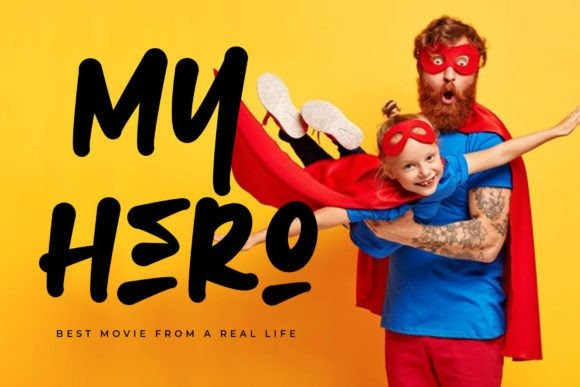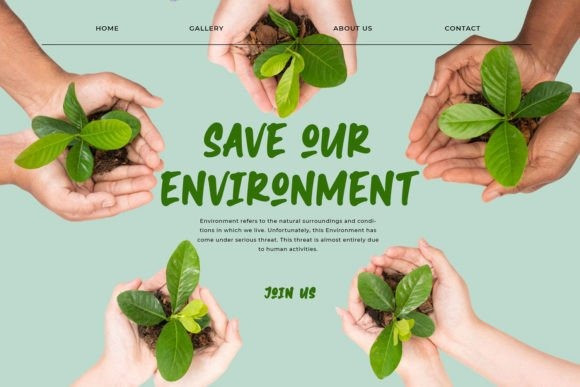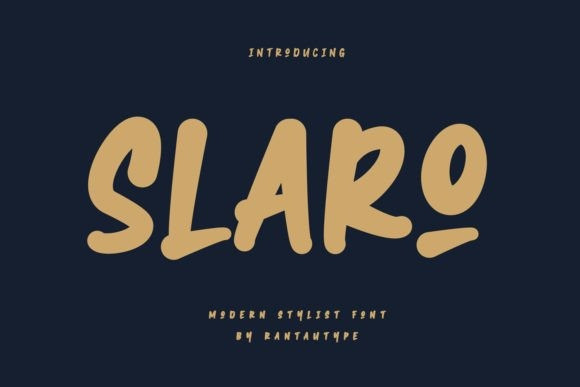
Slaro Font
Slaro Font is a modern and bold handwritten font that exudes confidence and style. Its strong and dynamic letterforms make a statement, while the subtle irregularities and brush-like strokes add a touch of authenticity. Whether used for logos, headlines, or social media graphics, Slaro instantly grabs attention and conveys a sense of contemporary flair. It’s a font that stands out from the crowd.